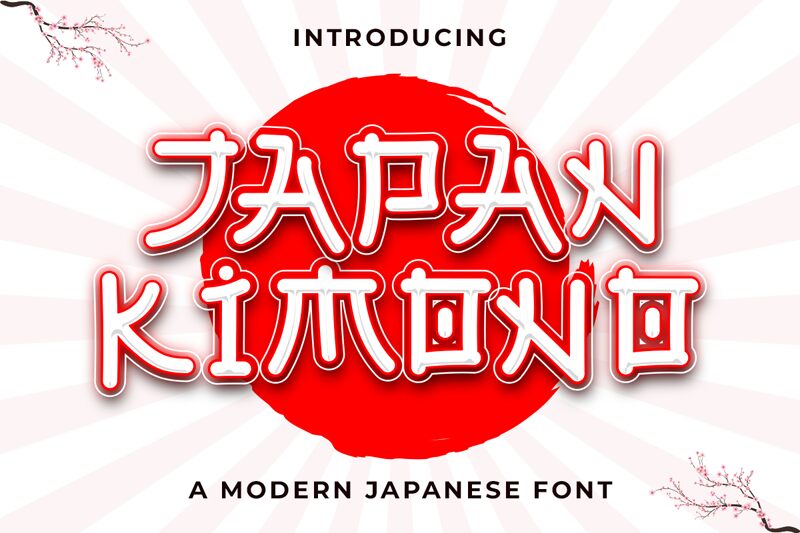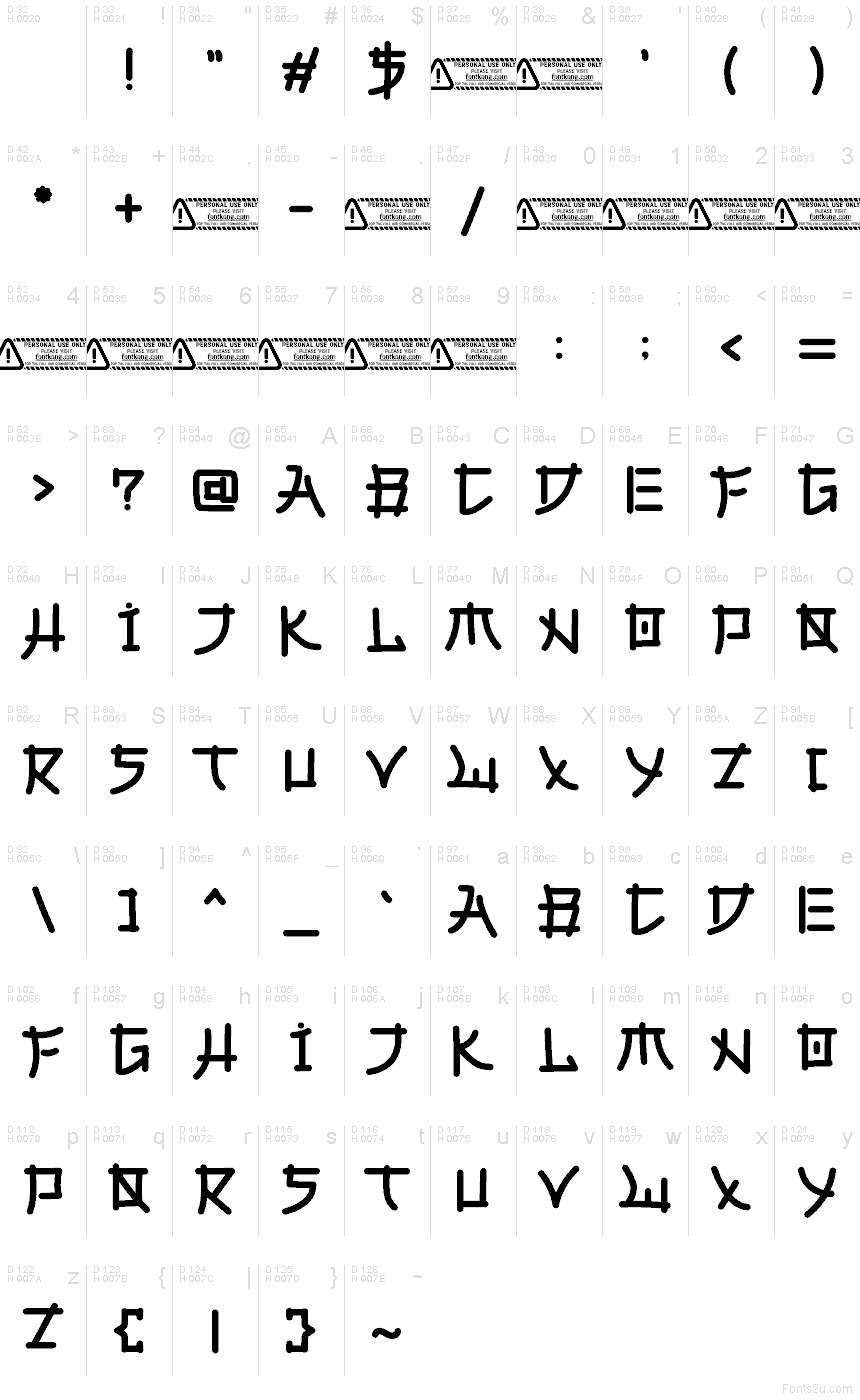
Japan Kimono font by Kong Font is a free faux Japanese decorative typeface that turns Latin letters into chunky, brush-like symbols. The strokes feel hand-painted and slightly uneven, like ink dragged across textured paper, giving your titles a lively, street-market energy. Rounded corners soften the look, so it feels playful rather than harsh, great when you want an approachable “Japan-inspired” vibe without going overly serious or traditional.
Using Japan Kimono, bold headlines instantly read as themed and immersive, making this free font a natural fit for ramen shop logos, food truck menus, festival posters, game titles, YouTube thumbnails, and travel-themed merch. It holds up best in large sizes where the quirky shapes can breathe. Pair it with a simple, clean sans serif for body text so the stylized letters stay in the spotlight while everything else remains easy to read.